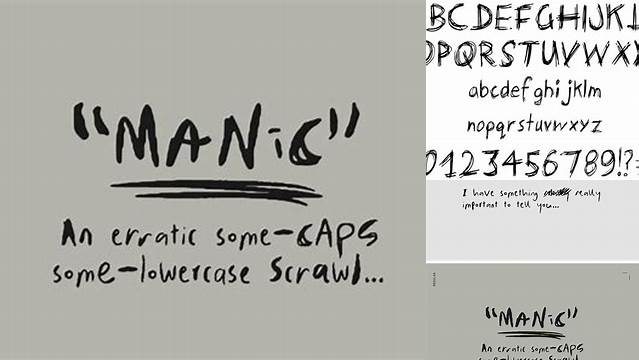
Free Manic & Erratic Fonts: Unleash Your Creativity!
Hey everyone! Are you looking to inject some serious energy and unpredictability into your designs? Well, you've come to the right place! Today, we're diving headfirst into the wild world of free manic erratic fonts. These fonts are all about breaking the rules, embracing chaos, and grabbing attention. Forget boring and predictable – we're talking fonts that scream, shout, and maybe even do a little dance on the page. Whether you're working on a poster, a website, a social media post, or anything in between, these fonts are your secret weapon for making a statement. So, buckle up, because we're about to explore a fontastic collection that'll have you itching to create something bold and unforgettable. Let's get this font party started!
H2: Understanding Manic and Erratic Font Styles
Alright, let's get down to brass tacks and understand what we mean when we say manic erratic font styles. Think of it as a visual representation of pure, unadulterated energy. These fonts are designed to feel dynamic, unpredictable, and, well, a little bit crazy! They're the typography equivalent of a lightning bolt, a burst of confetti, or a sudden, unexpected guitar solo. They don't follow the usual rules of font design; instead, they revel in asymmetry, exaggerated features, and a sense of movement that leaps off the screen or page. They are the antithesis of the sleek, clean, and minimalist fonts. These fonts are about making a statement, causing a stir, and being unforgettable. They often incorporate elements like uneven baselines, varying stroke weights, and characters that seem to be constantly shifting and morphing. The goal is to evoke a feeling of excitement, urgency, or raw emotion. So, if you're looking to make your designs pop, grab attention, and stand out from the crowd, then manic erratic fonts are definitely your jam. Remember, these fonts are not for the faint of heart. They're bold, they're loud, and they're designed to be noticed. When used correctly, they can be incredibly effective. When misused, well, you might end up with a design that's just a little too much. Practice and experimentation are key. Play around with different fonts, see how they interact with your other design elements, and find the perfect balance to make your vision come to life. That’s the key, just use it well.
H3: Key Characteristics of Manic Fonts
Let's break down some key characteristics of manic fonts. Firstly, unpredictability is their middle name. These fonts rarely stick to a consistent pattern. Characters might vary wildly in size, shape, or spacing, giving a sense of chaotic energy. Secondly, boldness is crucial. These fonts rarely shy away from attention. Thick strokes, exaggerated serifs, and unusual letterforms are common. They're designed to shout, not whisper. Then, there’s irregularity, which is another major factor. Clean lines and perfect symmetry are out the window. Expect uneven baselines, tilted letters, and a general feeling that the font is constantly in motion. The element of exaggeration also plays a big role. Features might be blown up, stretched, or distorted to create a more impactful visual. Next, you will find dynamic motion everywhere in the font. It's like the letters are jumping off the page. They often incorporate angled strokes, sharp points, and characters that appear to be moving. And finally, raw emotion is at the core. The fonts are designed to convey a specific mood or feeling. They could evoke excitement, anger, or even a sense of playful mischief. By understanding these characteristics, you can better appreciate the artistry behind manic fonts and make informed decisions about when and how to use them. You'll be able to recognize the subtle nuances that make each font unique and how they work together to create a cohesive design. This deep dive allows you to use these fonts for their full potential.
H2: The Psychology Behind Erratic Font Choices
Ever wondered why some fonts just feel a certain way? Well, there's a whole lot of psychology going on behind the scenes. When we see a manic erratic font, our brains automatically start to process the information in a unique way. It's not just about the letters themselves; it's about the feeling they evoke. These fonts don't just convey words; they transmit emotions, they influence our perceptions, and they tell a story before we even read the first letter. So what happens in our brain when we see these fonts? First, we deal with attention-grabbing. Manic fonts are inherently designed to stand out. Their unconventional shapes, bold strokes, and unexpected details immediately grab our attention. The brain is wired to notice anything that deviates from the norm, and these fonts do that perfectly. Then there’s emotional connection. They tap into our emotions in a way that more standard fonts simply can't. They can evoke feelings of excitement, chaos, or even a sense of rebellion. Depending on your message, this can be a powerful tool. The third point to consider is brand personality. Choosing a manic font can say a lot about a brand. It can communicate a sense of energy, innovation, or even a touch of irreverence. It's a visual shorthand that helps to define a brand's identity. Finally, we get into visual hierarchy. These fonts can be used to create a visual hierarchy within a design. By using a manic font for headlines or key words, you can draw the reader's eye and direct their attention to the most important elements. All of this means that the choice of an erratic font is never a random decision. It's a carefully considered choice that can significantly impact how a design is received. This understanding allows you to harness the power of these fonts to achieve your desired results.
H3: How Fonts Influence Perception and Emotion
So, how exactly do manic erratic fonts influence our perception and emotions? It's a fascinating interplay of visual cues and subconscious associations. The font we choose can alter the way we interpret a message, shaping our emotional response and influencing our overall perception of the design. Let's break it down. First up is visual impact. Manic fonts have a strong visual impact. Their unique shapes, unconventional structures, and bold presence immediately grab our attention. This alone can influence how we perceive a design. Then we get to emotional resonance. These fonts have the power to evoke emotions. The feeling of energy, excitement, or even chaos can be conveyed through the style of the font. This can create a powerful emotional connection with the viewer. Next is brand association. Specific fonts become associated with certain brands. When we see a manic font, we might unconsciously associate it with a brand's personality and values. This association can influence how we perceive the brand itself. Then there’s message interpretation. The font choice can affect how we interpret the message. A manic font can add a layer of emphasis, making a statement appear more urgent, exciting, or rebellious. Finally, it's all about memory and recall. Designs that use bold or unusual fonts are more likely to stick in our minds. The unique visual element helps them to stand out and be remembered. By understanding these psychological influences, you can strategically choose the right font to trigger the desired emotional response. This is how you can use them correctly.
H2: Best Uses for Manic Erratic Fonts
So, you've got a killer font in hand. Now what? Manic erratic fonts are not a one-size-fits-all solution. They’re most effective when used in specific contexts, where their energy and unconventional style can truly shine. Think of them as the exclamation point of typography – best used sparingly for maximum impact. These fonts are ideal for grabbing attention, making a statement, and adding a touch of visual excitement. They work best when you want to stand out from the crowd. Let's talk about the best times to use them. Think about posters and flyers. These fonts can make your message pop. They are great to create eye-catching designs. They’re also perfect for website headers and titles. Use them to draw the reader's eye and create a memorable first impression. They also can be incorporated into social media graphics. They are excellent for creating shareable content that stands out. Also, they are good for event promotions. Whether it's a concert, a party, or a workshop, these fonts can help build anticipation and excitement. These can be good for logos and branding. Use them to convey a sense of energy, innovation, or a unique brand personality. Finally, they are great for creative projects. They are ideal for anything from album art to book covers, where the goal is to make a strong visual impact. Remember, the key is to use them strategically, in places where their boldness will enhance your message, not distract from it.
H3: Design Projects Where These Fonts Excel
Let's get specific. Where do manic erratic fonts truly shine? These fonts are not just for any project; they're best suited for projects that embrace boldness, energy, and a touch of the unexpected. When they're used correctly, they can elevate designs to a whole new level of impact. So, which design projects excel with these fonts? Music posters and album art is an obvious choice. These fonts are perfect for capturing the energy of a band, a song, or a whole music genre. You can also use them for streetwear and fashion brands. They are great for brands that embrace individuality and a sense of rebellion. Furthermore, you can use them for event branding for concerts, festivals, and parties. The fonts will help build excitement and capture attention. Also consider them for game and app interfaces, especially those with a high-energy aesthetic, they are great for that. Moreover, you can use them for editorial layouts, in magazines or online publications, to create an eye-catching design. Finally, consider using them for personal projects that seek to make a bold statement, these fonts are great for that. By using them in these spaces, you're not just choosing a font; you're making a statement. These fonts should reflect the project's energy and personality. That's the secret to making it work.
H2: Finding Free Manic Erratic Fonts Online
Alright, so you're ready to jump in. Great! One of the best things about manic erratic fonts is that there are tons of free options available online. However, with so many choices, it can be tricky to find the perfect font for your project. Where to start, right? The good news is that finding these fonts doesn't have to be a chore. Many websites offer a vast selection of free fonts. Here are the best ways to find these fonts. You can start with font websites. Websites like Google Fonts, DaFont, and Font Squirrel are treasure troves. They offer a wide variety of free, high-quality fonts, including plenty of manic and erratic options. Next, there are design resources websites. Platforms like Behance and Dribbble showcase work from designers all around the world. You can often find links to free fonts used in their projects. Also, make sure you are using creative marketplaces. Websites such as Creative Market and Etsy sometimes offer free font bundles or individual free fonts as promotional offers. Finally, don't be afraid to search by keyword. When searching, use specific keywords like